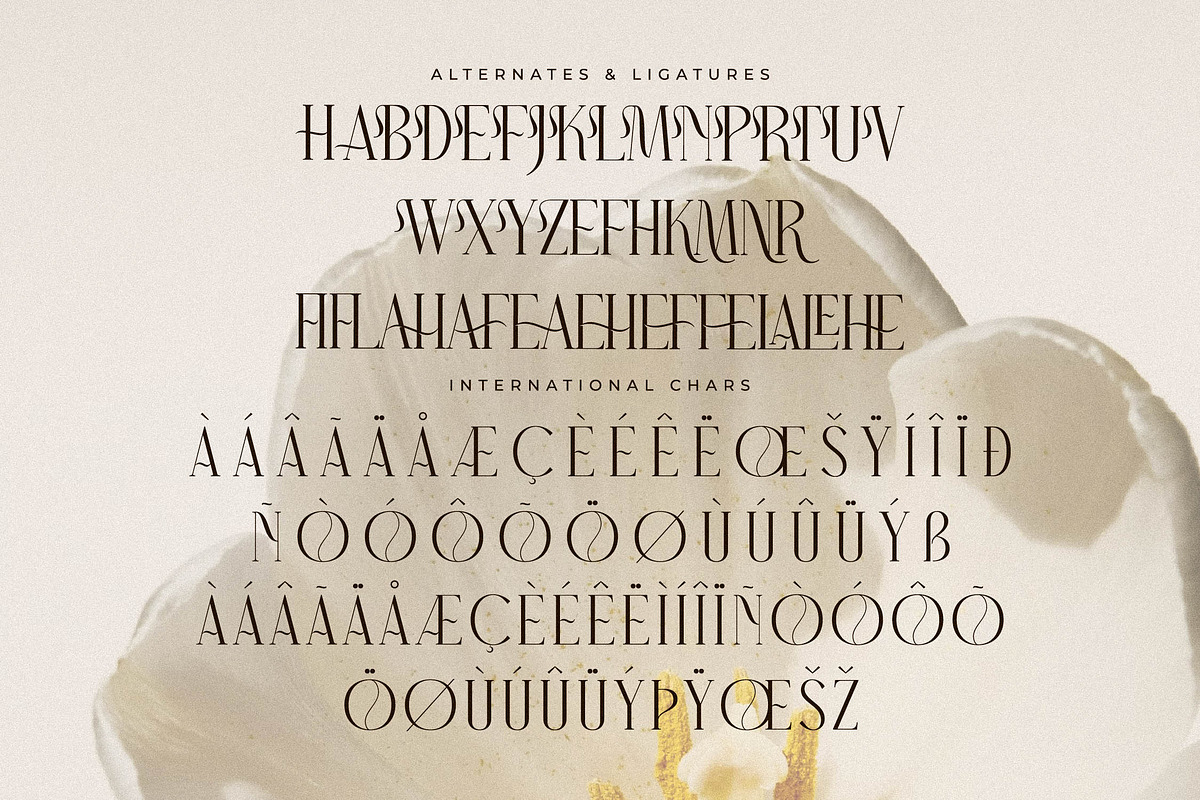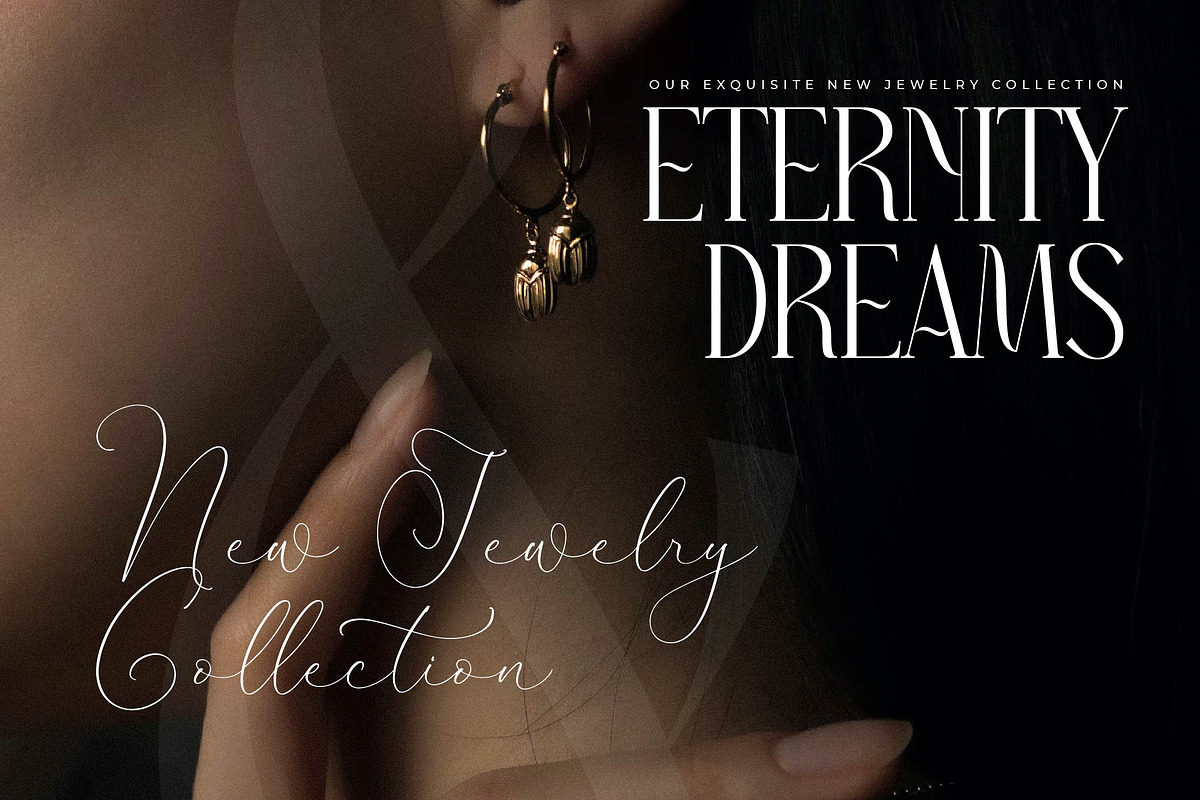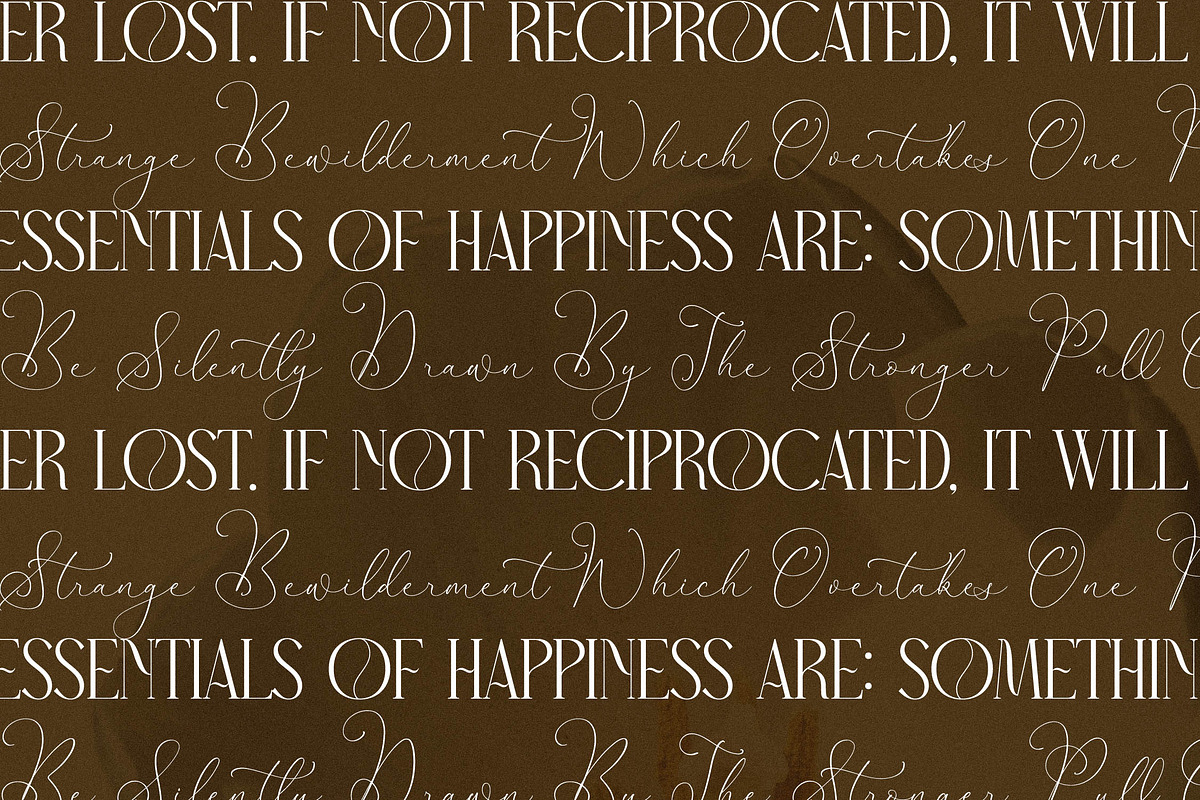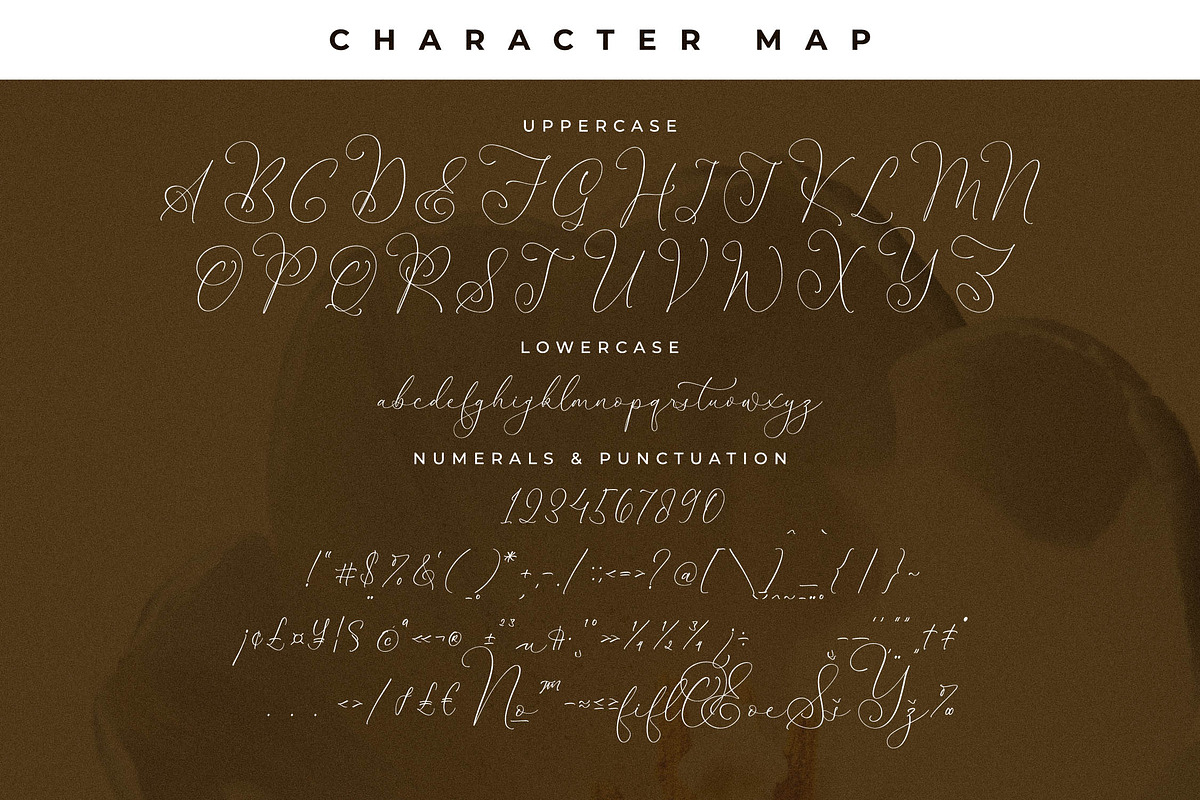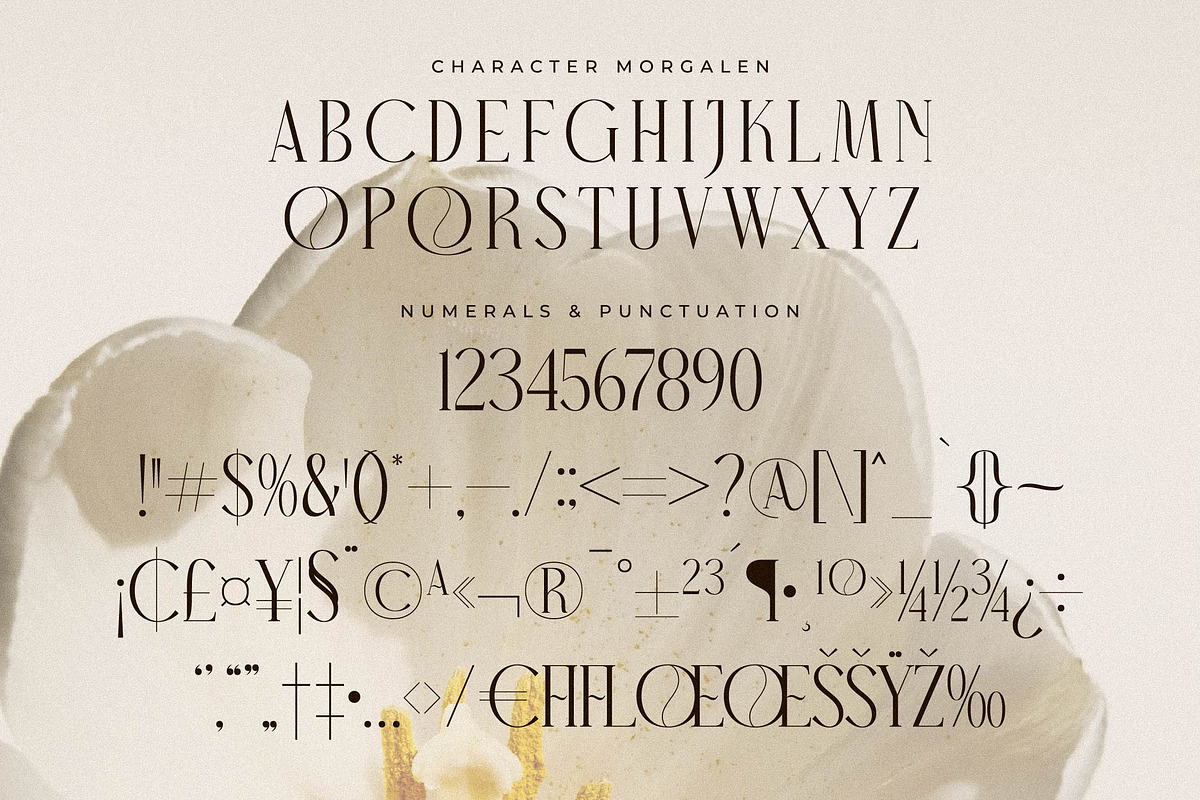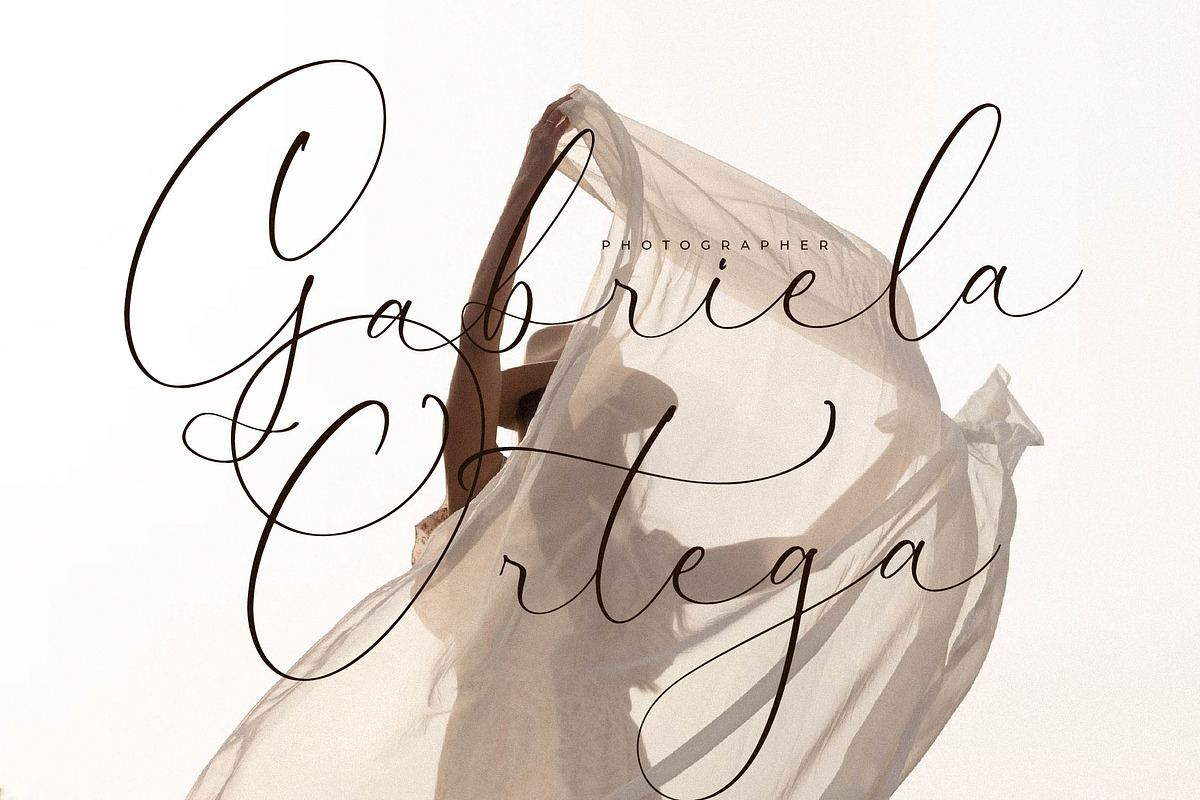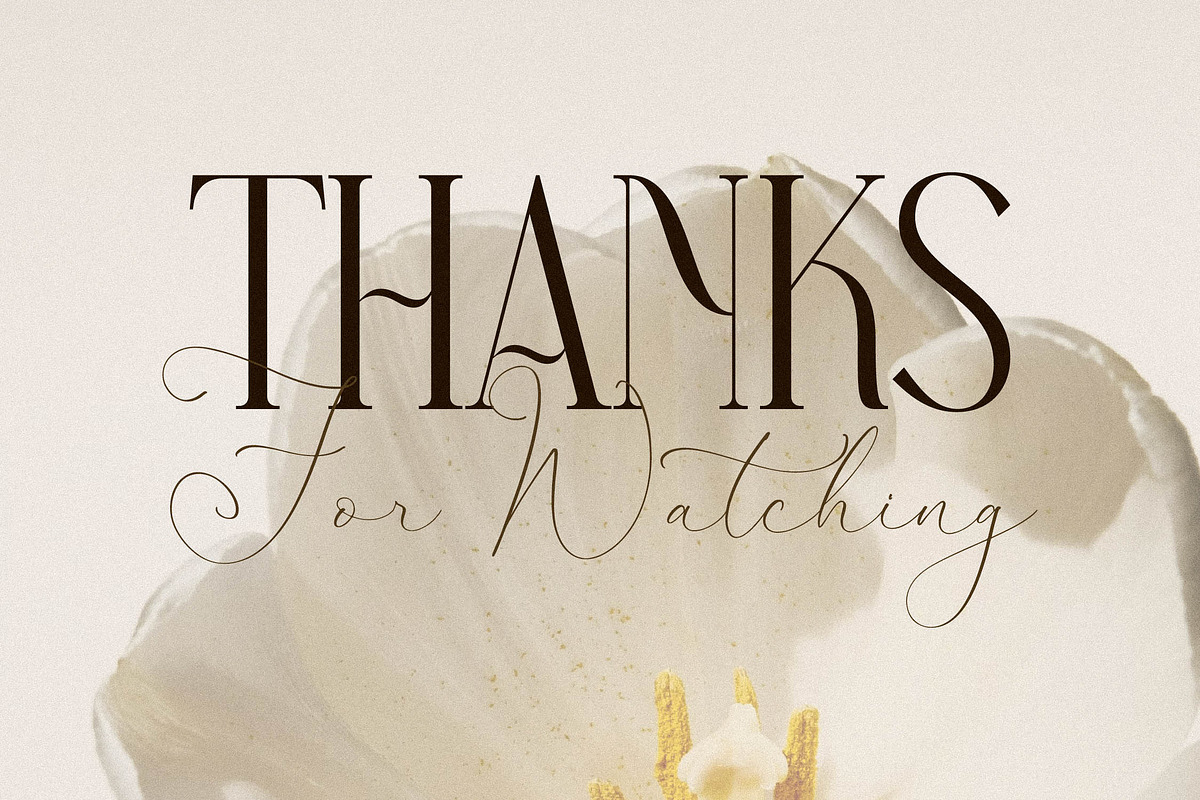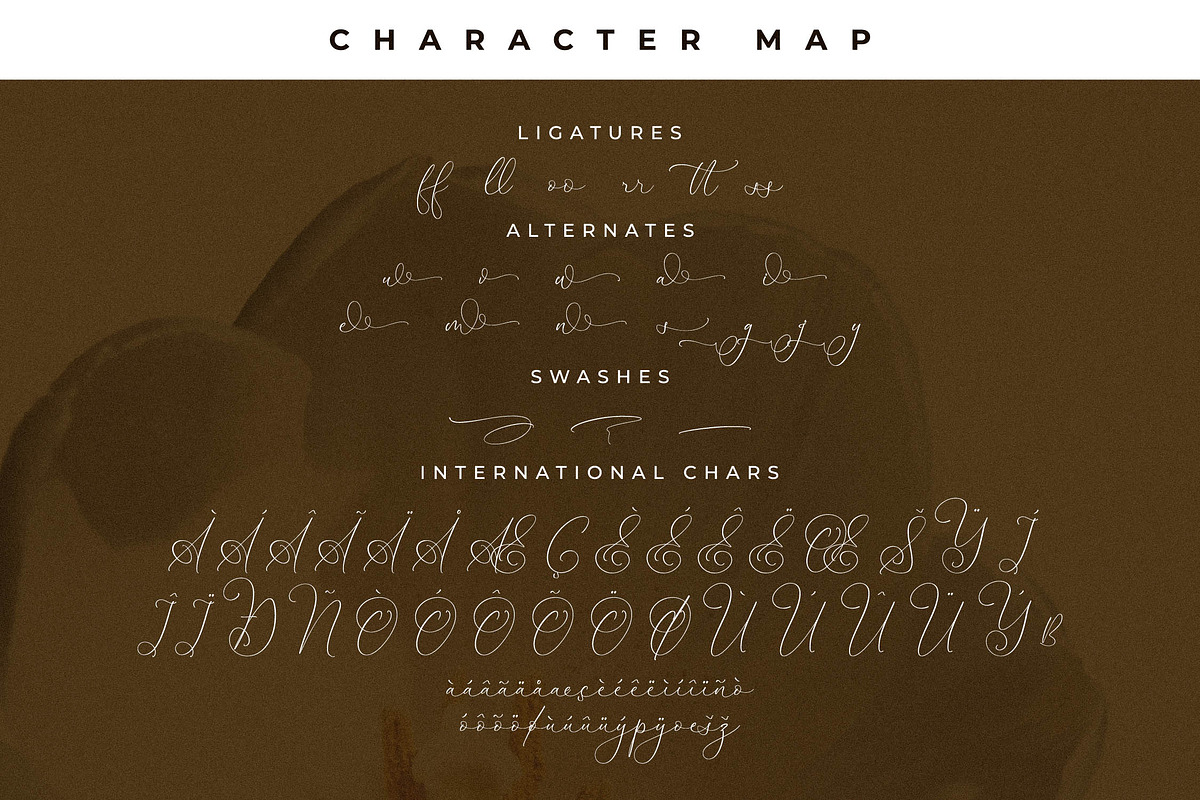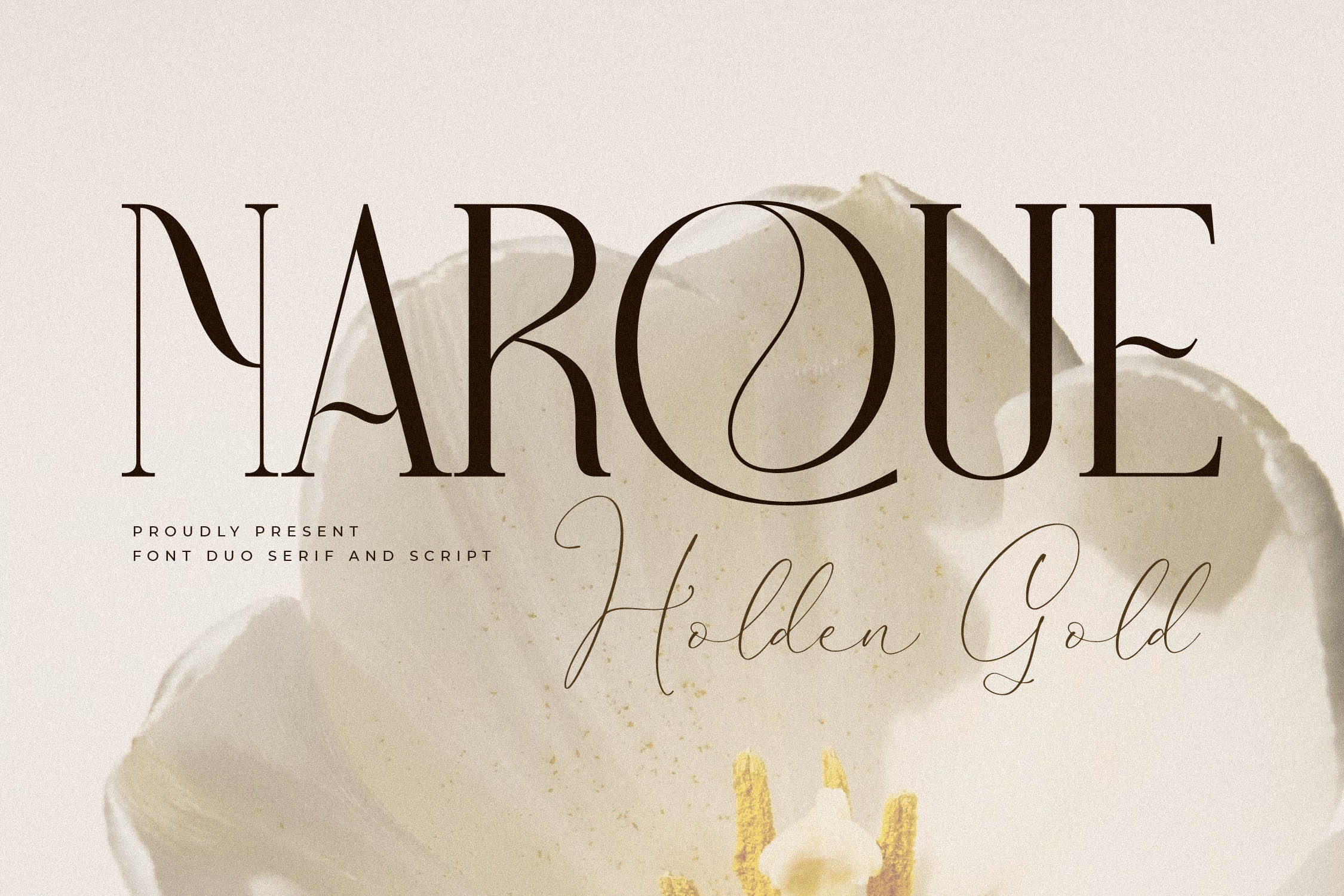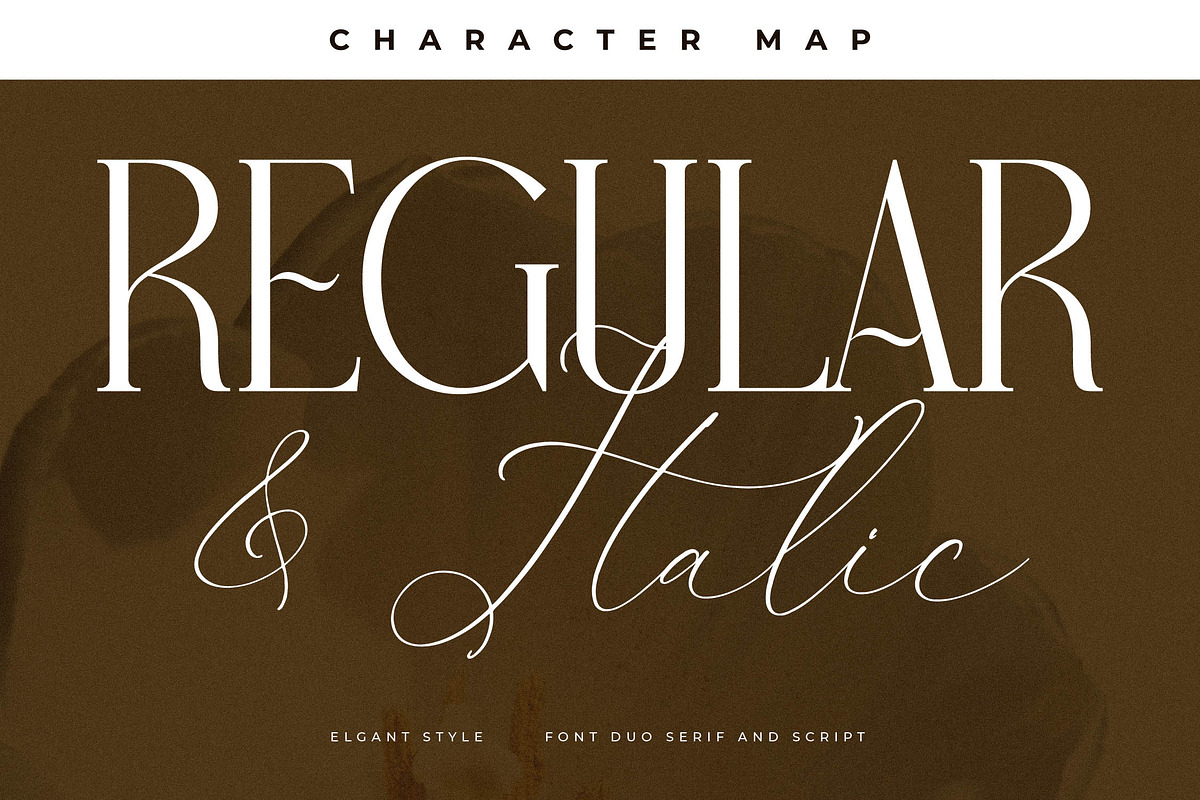
Narque Holden Gold Font Duo
Proudly present Narque Holden Gold Font Duo , created by Storytype, A serif and script typeface that has own unique style & modern look. This typeface is perfect for an elegant & luxury logo, book or movie title design, fashion brand, magazine, clothes, lettering, quotes, and so much more.